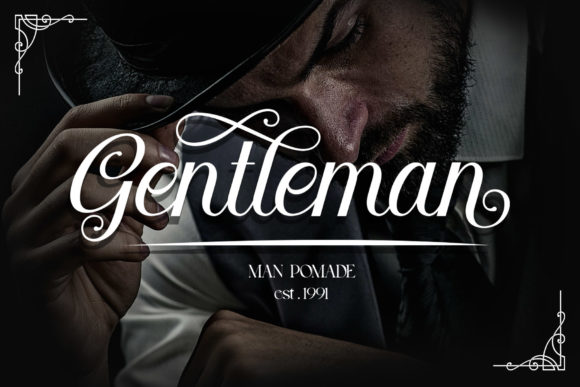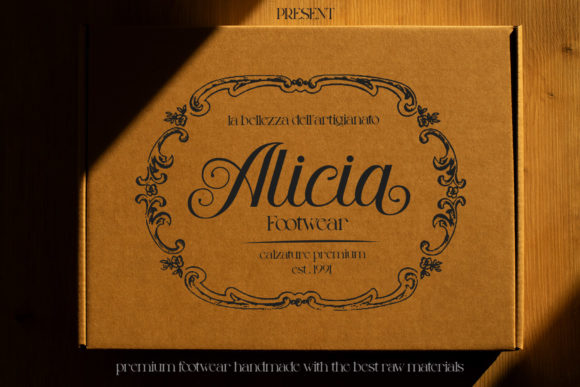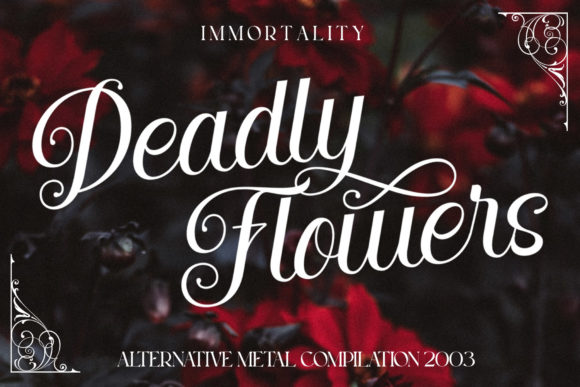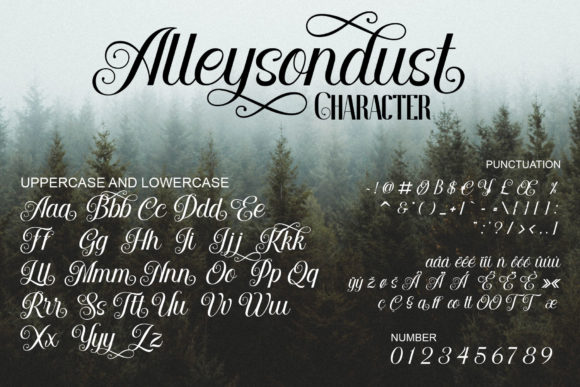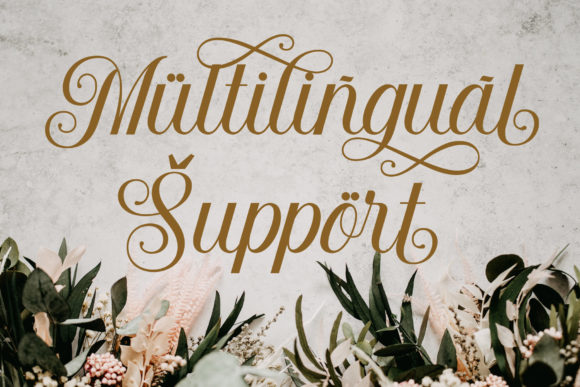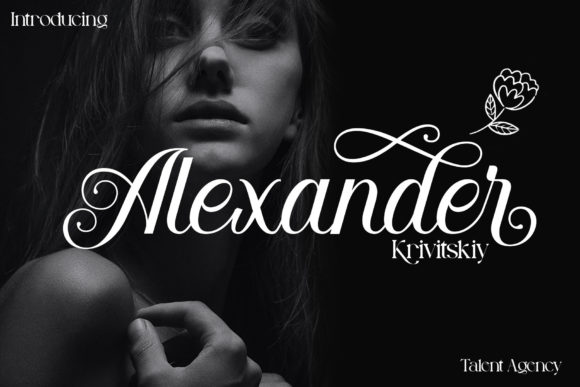
Introducing Alleysondust Font: Elevate Your Designs with Elegance
In the world of typography, a font can make or break the aesthetic of a design project. For those seeking an elegant and contemporary script font that exudes sophistication, Alleysondust is an exceptional choice. Inspired by timeless classic calligraphy, this font strikes the perfect balance between modernity and tradition, making it an indispensable tool for designers and crafters alike.
The Essence of Alleysondust Font
Alleysondust is characterized by its impeccable form and a harmonious blend of contemporary flair with classic calligraphic elements. It is neither too thin nor too thick, showcasing a balanced and varied design that adapts seamlessly to various project requirements. This elegant script font is meticulously crafted to enhance the beauty of your projects, whether you’re working on branding, packaging, stationery, or digital content.
Key Features of Alleysondust Font
- Elegant and Contemporary Design: Alleysondust boasts a sophisticated design that fits well with modern trends while maintaining a classic appeal.
- Balanced Stroke Width: The font’s balanced stroke width ensures that it remains legible and aesthetically pleasing across different sizes and applications.
- Versatility: Its varied and adaptable nature makes Alleysondust suitable for a wide range of projects, from luxury branding to personal crafts.
- Inspired by Timeless Classics: Drawing inspiration from classic calligraphy, Alleysondust brings a touch of tradition and elegance to contemporary designs.
Applications of Alleysondust Font
The versatility of Alleysondust makes it an excellent choice for various design projects. Here are some of the areas where this font truly shines:
- Branding and Logo Design: Create memorable and sophisticated brand identities with Alleysondust. Its elegant appearance makes it perfect for luxury brands, boutiques, and creative agencies.
- Stationery and Packaging: Elevate your stationery, such as business cards, letterheads, and packaging designs, with a touch of class and refinement.
- Digital Content: Enhance your website, blog, or social media graphics with Alleysondust. Its readability and style make it an excellent choice for headings and quotes.
- Crafting and DIY Projects: For crafters and DIY enthusiasts, Alleysondust can add a professional and personalized touch to handmade cards, journals, and other creative endeavors.
Tips for Using Alleysondust Font Effectively
To maximize the impact of Alleysondust in your designs, consider the following tips:
- Pair with Complementary Fonts: Combine Alleysondust with clean sans-serif or serif fonts for contrast and visual interest.
- Adjust Size and Color: Experiment with different sizes and colors to create hierarchy and emphasis in your designs.
- Utilize Ligatures and Swashes: Take advantage of the font’s special features, such as ligatures and swashes, to add a unique touch to your typography.
Alleysondust font is a remarkable addition to any designer’s or crafter’s toolkit. Its elegant and contemporary design, inspired by timeless classic calligraphy, offers a perfect blend of sophistication and versatility. Whether you’re working on a luxury brand project, a personal crafting endeavor, or digital content, Alleysondust is sure to elevate your designs and leave a lasting impression. Discover the beauty and potential of Alleysondust font in your next project and experience the difference it can make.